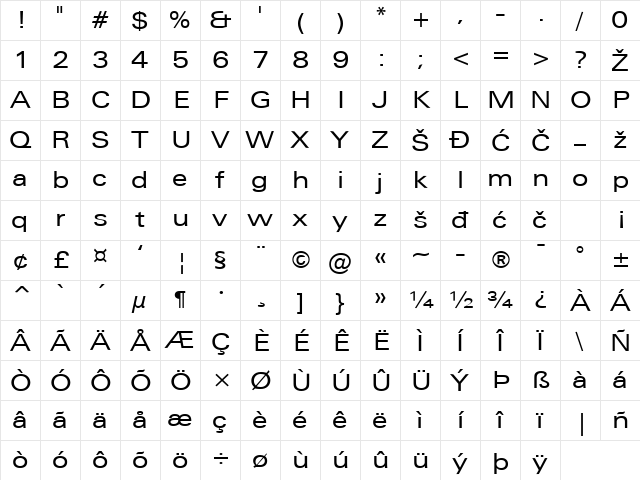
ZurichExtended Regular
Complete ZurichExtended Regular glyph index. Displaying only characters natively supported by ZurichExtended Regular font.
Design Context for ZurichExtended
ZurichExtended is a composed and adaptable typeface that performs quietly and consistently across a wide range of design contexts.
Pro Tip: Use ZurichExtended in both headline and body roles to test its range before committing to a single application.